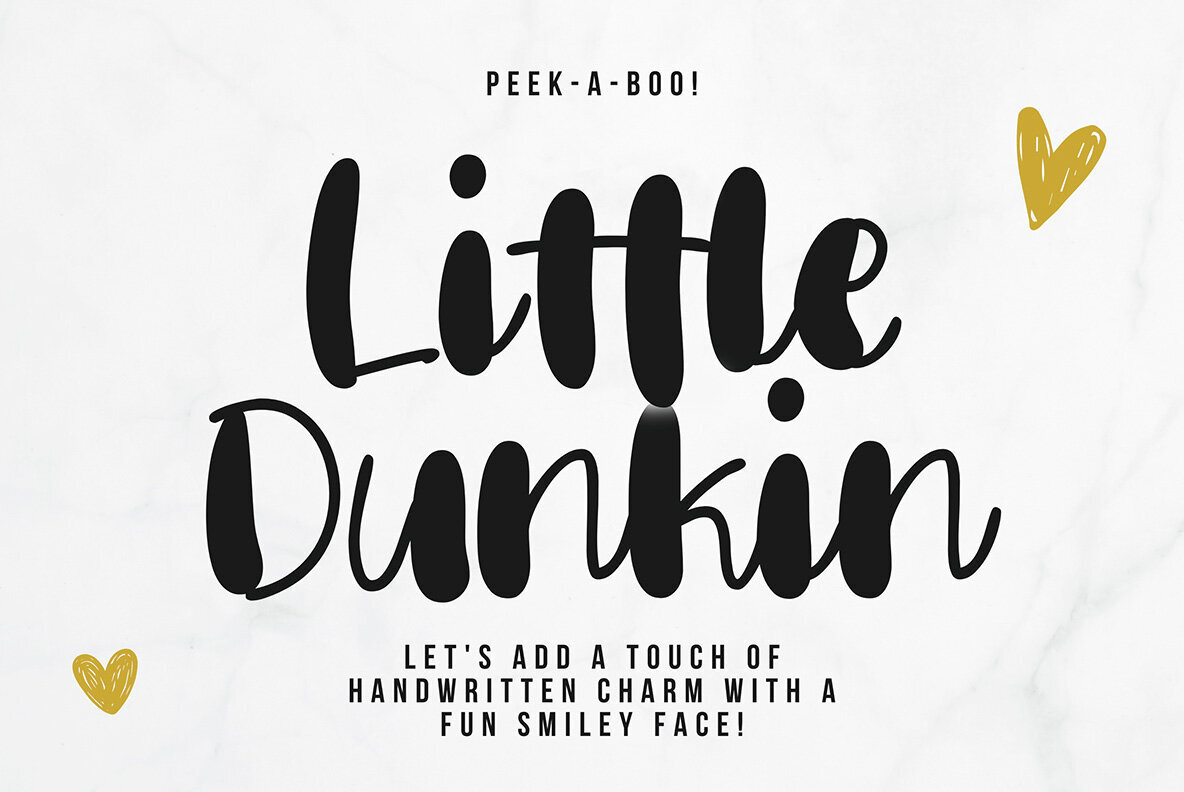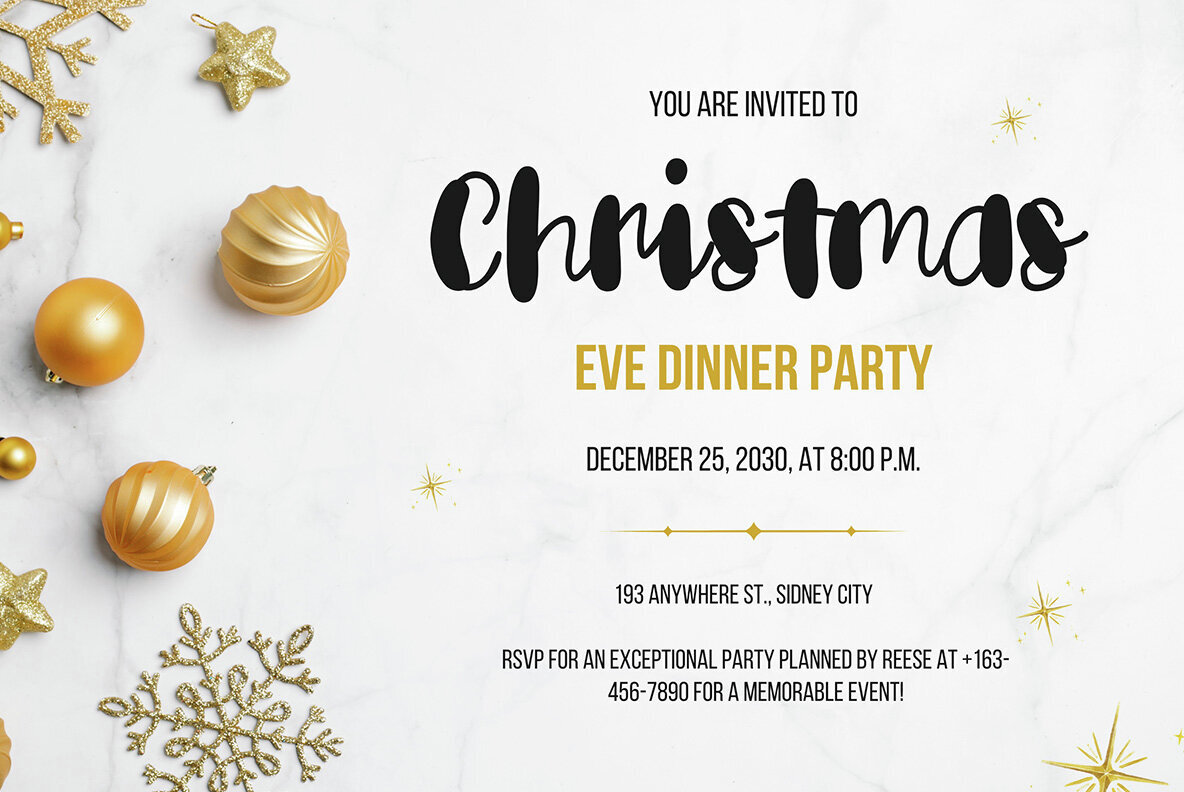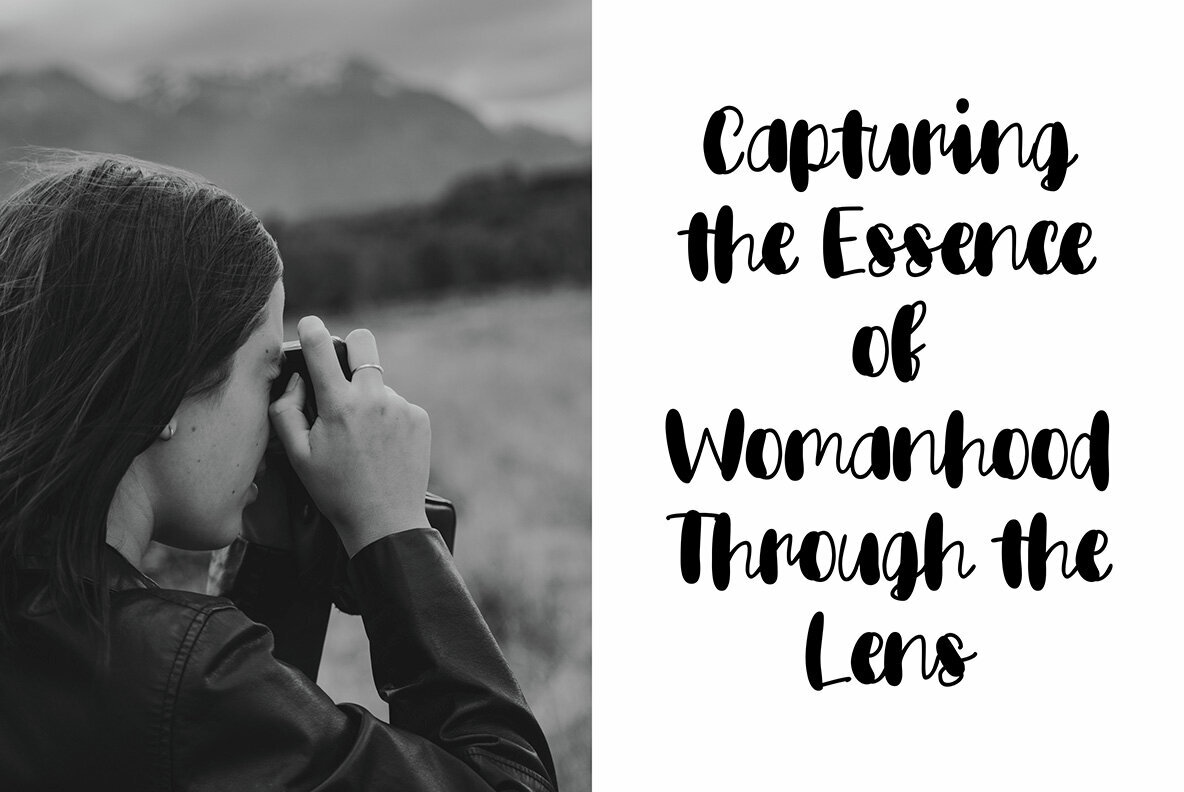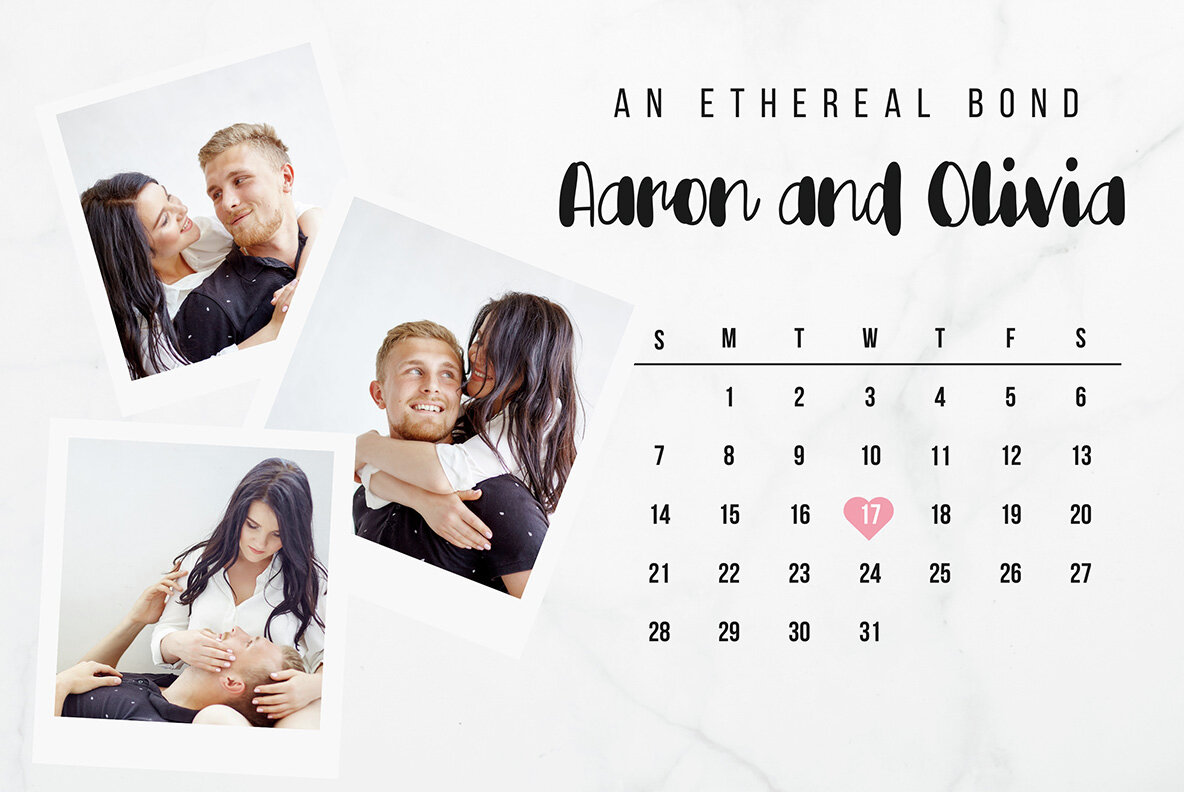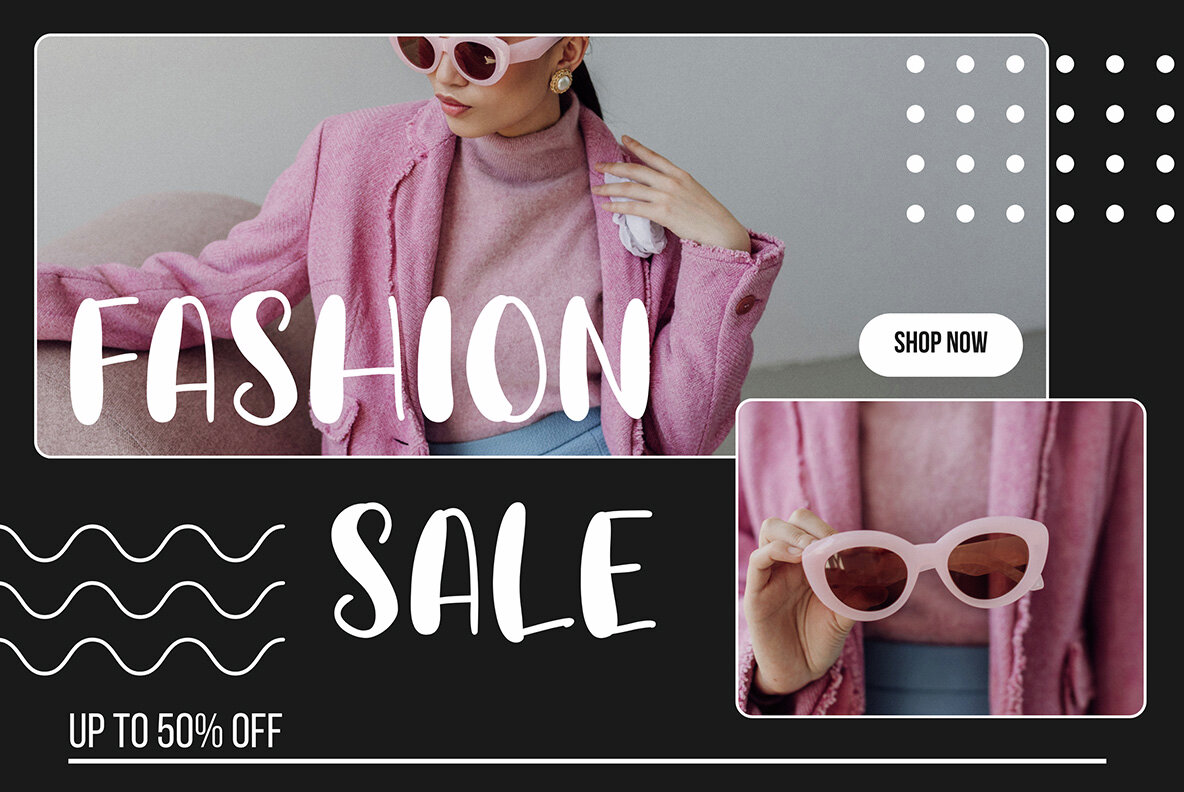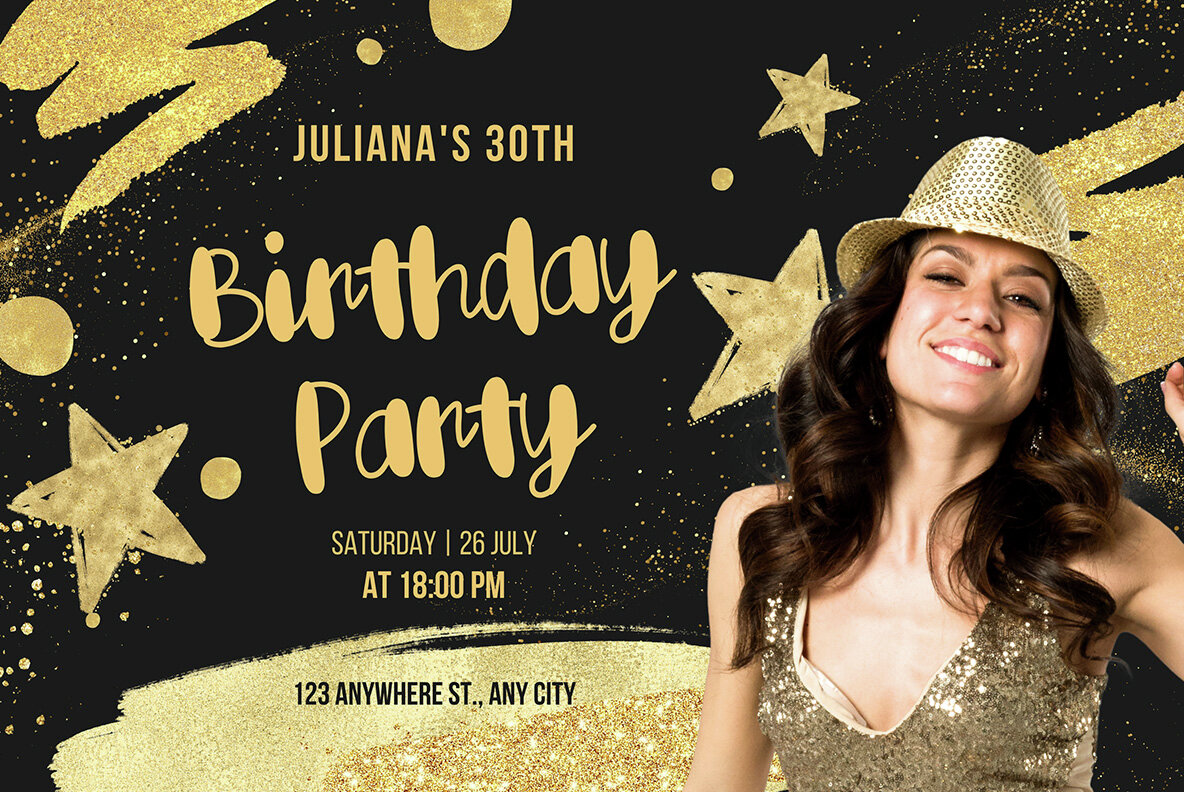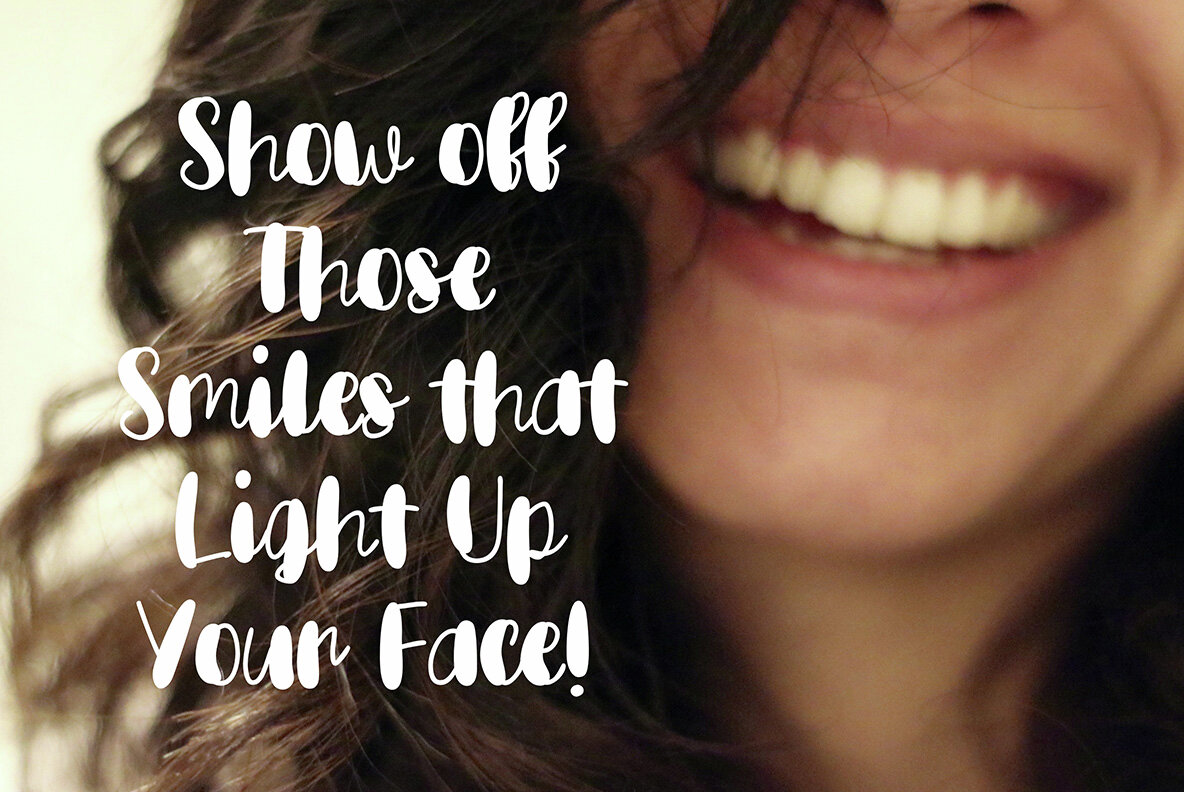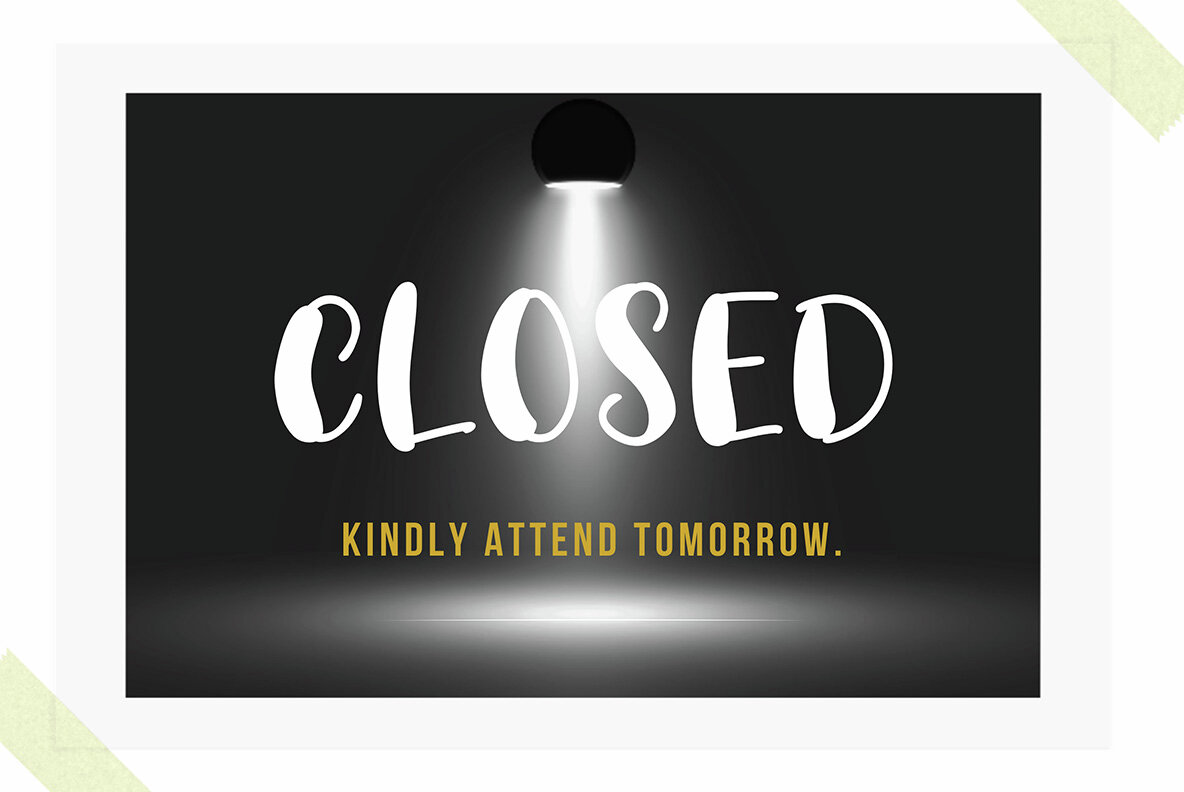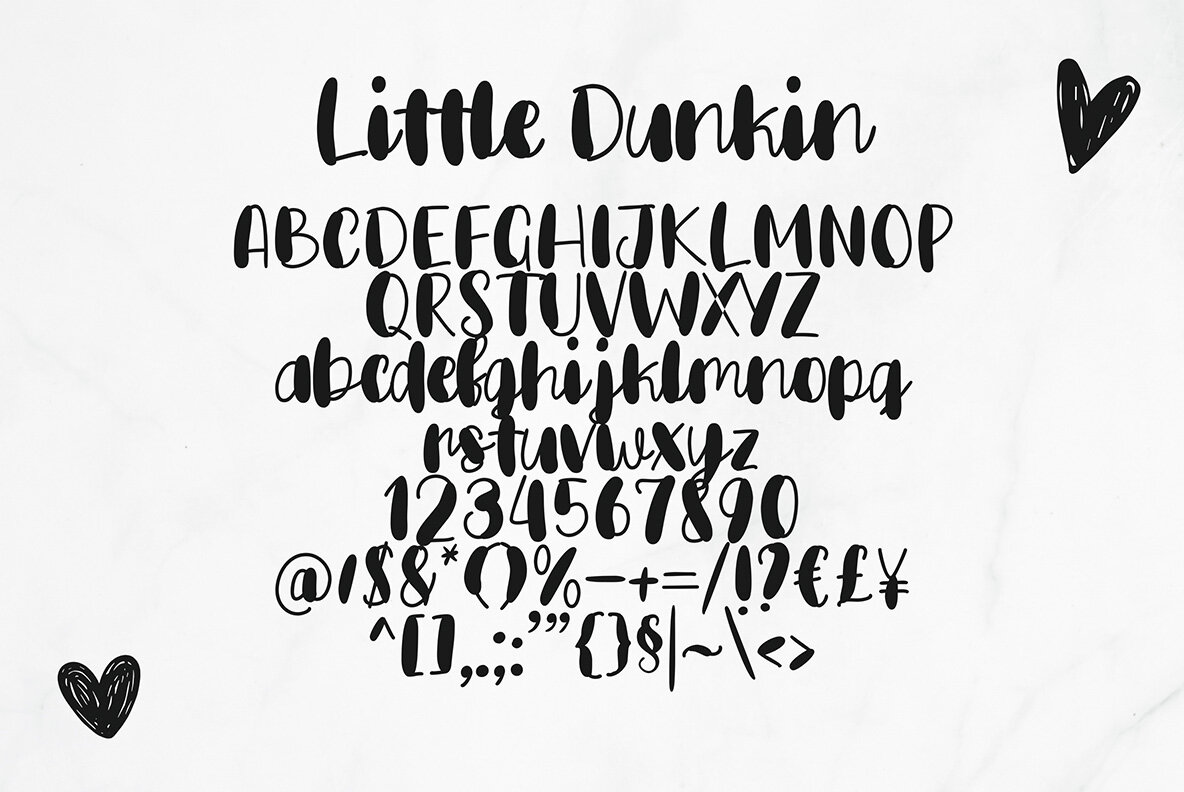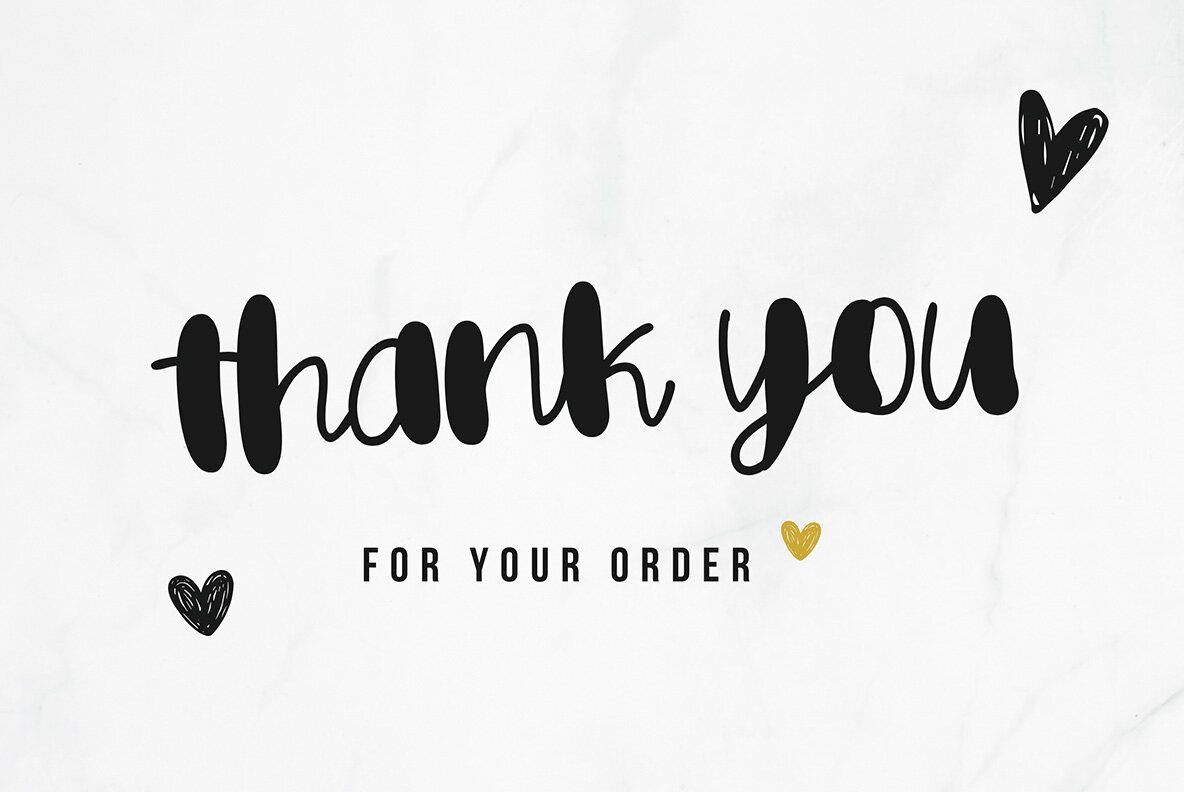
Little Dunkin Font
Little Dunkin
Introducing Little Dunkin, a delightful handwritten bubble font that radiates charm and playfulness. Inspired by the vibrancy of street fashion and the spontaneity of doodles, this font infuses joy and energy into every design project. Ideal for streetwear branding, catchy posters, sleek fashion layouts, or adding a stylish pop to your quotes and images, Little Dunkin elevates creativity with every curve.Little Dunkin: A Bubbly Font Full of Fun